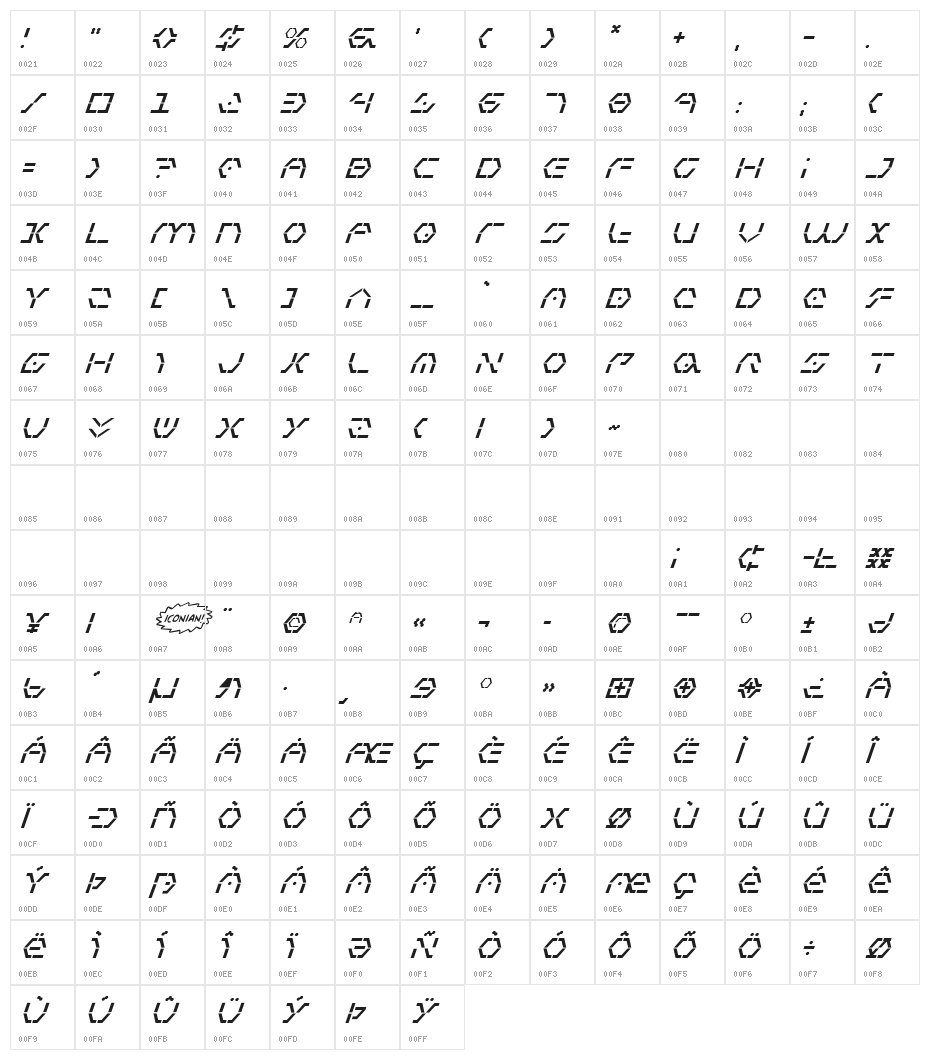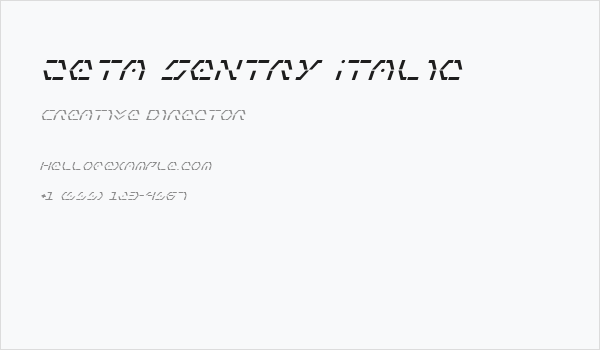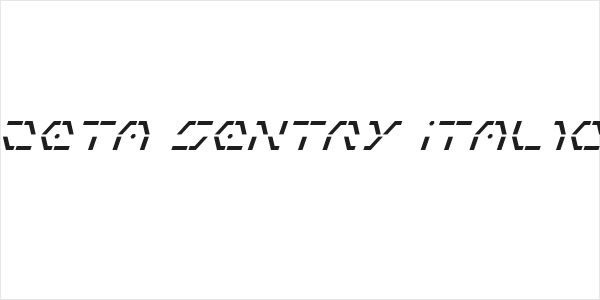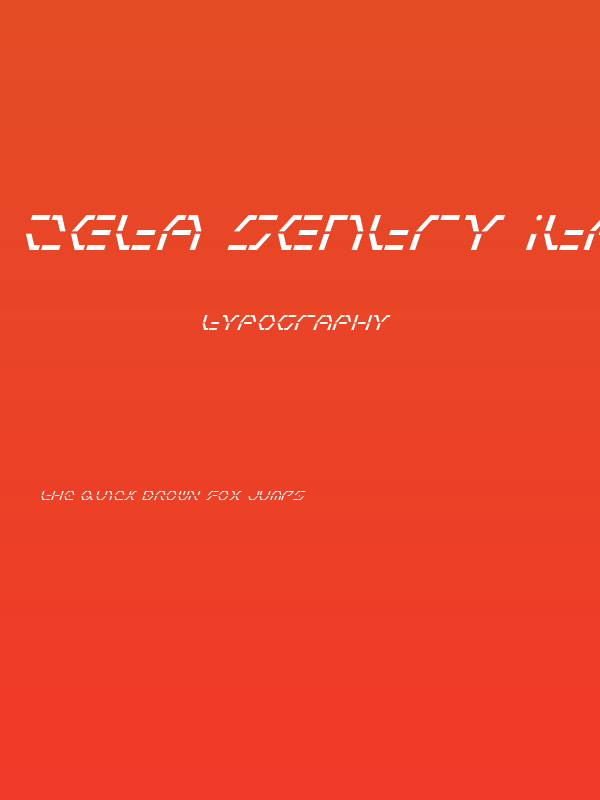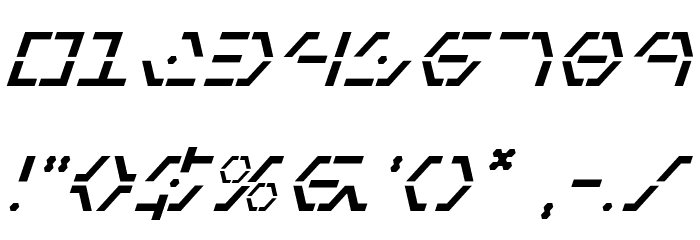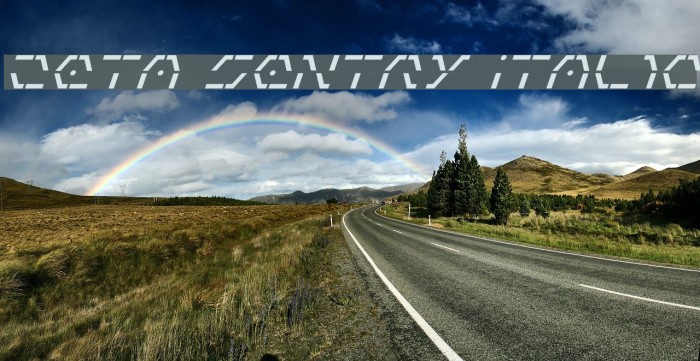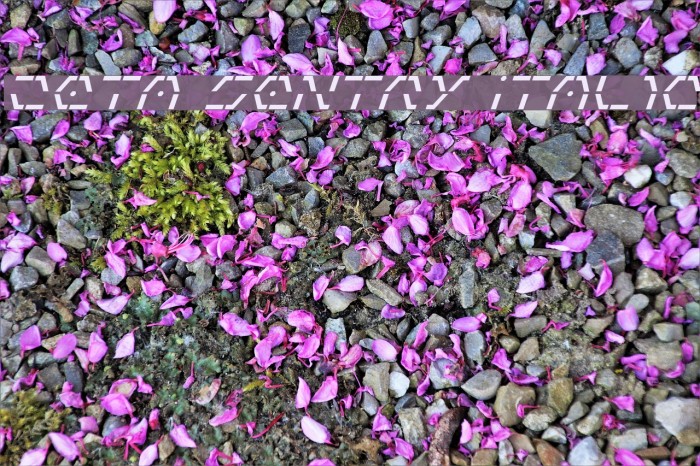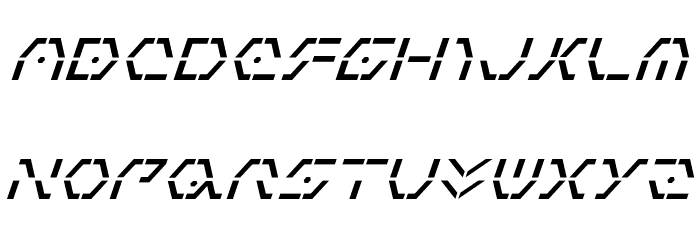
Zeta Sentry Italic Font
Zeta Sentry Italic Description
This font features a futuristic and angular design, characterized by its geometric shapes and sharp edges. The letters are constructed with a series of straight lines and angles, giving it a digital or tech-inspired appearance. The italic style adds a dynamic and forward-leaning aspect, enhancing its modern and sleek look. The font maintains a consistent stroke width, contributing to a uniform and cohesive appearance across all characters. Its unique style makes it stand out, ideal for projects that require a contemporary and innovative touch.
| Use Case | Logos, Headlines, Posters |
| Proposed Projects | Ideal for technology branding, sci-fi posters, video game titles, and digital interfaces. |